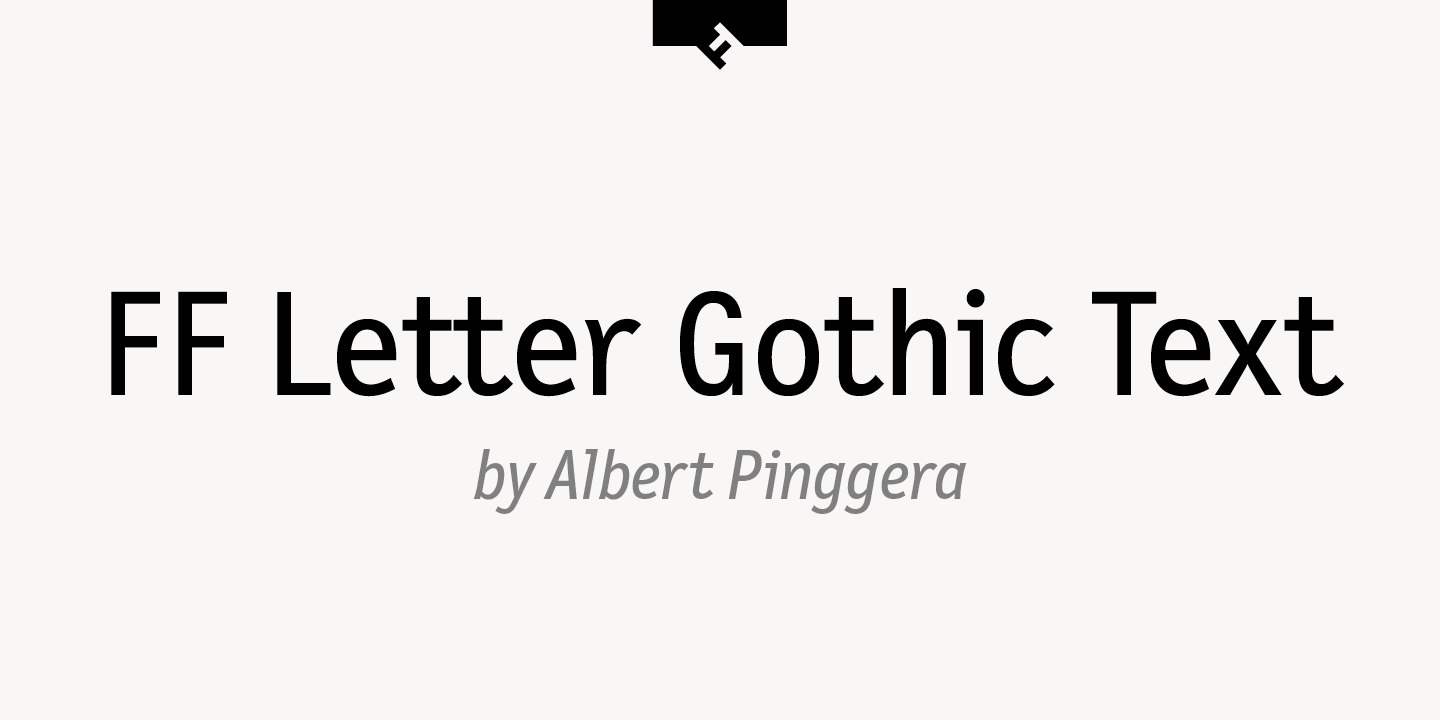
The FF Letter Gothic Text Font is incredibly versatile, making it an excellent choice for a wide array of design projects that demand a clean, modern, and highly legible aesthetic, particularly for extensive blocks of text. Imagine it bringing a crisp, professional edge to corporate documents and annual reports, ensuring clarity in technical manuals, or providing a sophisticated, understated feel to editorial layouts for academic journals and coding platforms. It's also fantastic for creating easy-to-read web content, designing user interfaces where readability is paramount, and crafting presentations that prioritize information delivery. Its inherent clarity and monospaced or near-monospaced structure make it perfect for any project striving to communicate data, code, or dense information with precision and an unwavering commitment to legibility.
What makes FF Letter Gothic Text Font so exciting is its unique ability to combine the classic, robust structure of a typewriter-style font with modern digital optimization for screen and print. It often features open counter-forms, a generous x-height, and consistent stroke widths that ensure individual characters are distinct and easy to decipher, even in challenging environments. This font doesn't just display text; it organizes information, making your content feel authoritative, structured, and effortlessly professional. Its balance of clean aesthetics and exceptional clarity ensures that your designs are not only visually neat but also effectively convey their intended message. It's a typeface that brings an atmosphere of functional elegance and precise communication to your typography, guaranteeing your projects leave a clear and impactful impression.
The FF Letter Gothic Text Font family typically includes a comprehensive range of weights and stylistic alternatives to provide extensive creative flexibility. While specific options can differ, you can generally expect to find alternatives like Regular, Italic, Bold, and potentially a Light or Condensed version, allowing for diverse visual impact and hierarchy. These different weights and stylistic sets allow you to create dynamic visual structures and add nuanced emphasis to your typography, ensuring a cohesive and thoughtfully designed outcome. This comprehensive family support ensures that whether you need a strong, clear headline or a subtle, precise body text, FF Letter Gothic Text Font Free Download offers the perfect elements to bring your functional and modern vision to life.